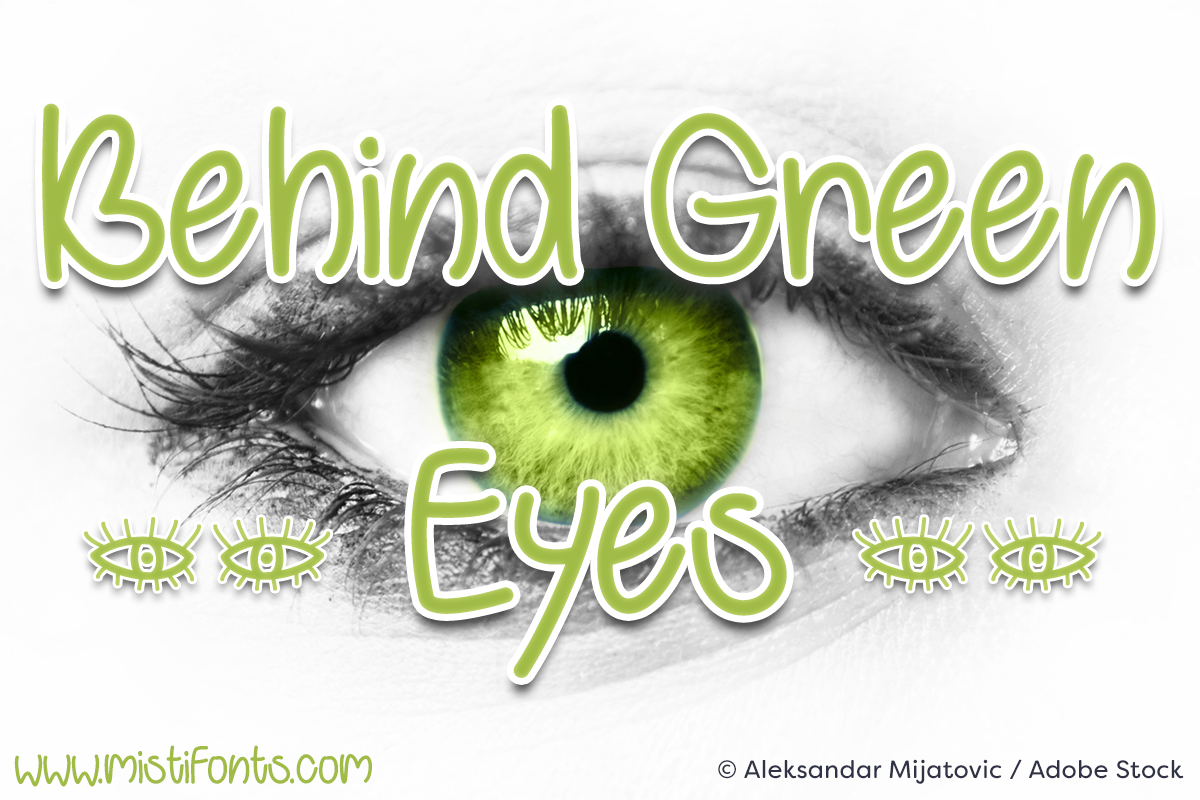
Behind Green Eyes
Behind Green Eyes is an eye-catching font that is perfect for your design and craft projects!
SPECIAL SYMBOLS:
Type * (asterisk,backslash) for the eyes